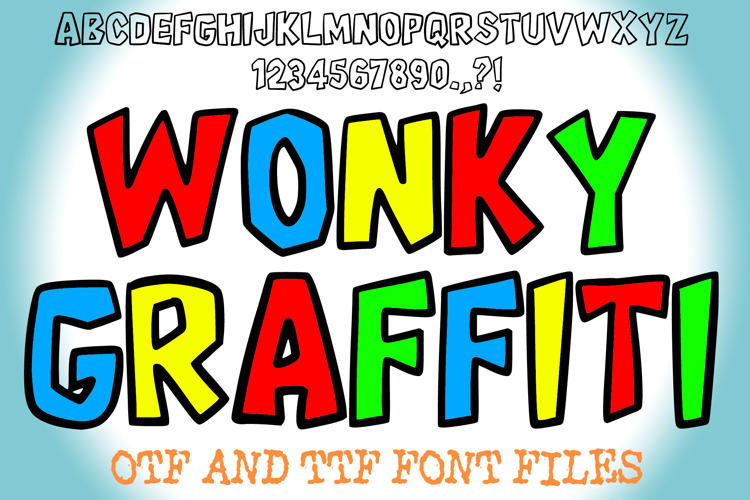
Wonky Graffiti Cutout Font Edgy, Hand-Drawn Urban Display
Unleash a raw, street-wise attitude with Wonky Graffiti Cutout Font! This powerfully expressive typeface captures the spontaneous energy of urban art, featuring bold, irregular letterforms with sharp, almost hand-cut edges that scream authentic graffiti style. It's more than just a font; it's a defiant shout from the streets, designed to inject an immediate, edgy, and vibrant feel into any creative project.
Each character in Wonky Graffiti Cutout Font is crafted with a robust, block-like structure whose outlines are sharply fragmented and angular, creating a distinctive, gritty, and eye-catching appearance, as if roughly cut from a stencil or painted freehand. Ideal for crafting impactful headlines, edgy logos, urban streetwear designs, protest art, zine layouts, or any project that demands a powerful, anti-establishment aesthetic.
Whether you're aiming for a hardcore punk vibe, a raw street art feel, a vintage DIY aesthetic, or simply a fiercely unique display, this font delivers with uncompromising style. Its commanding presence, combined with its unique wonky, cutout edges, ensures readability while injecting an artistic chaos that stands out dramatically from pristine, conventional typography.
If you're looking to infuse your designs with a sense of rebellion, genuine urban texture, and undeniable street credibility, Wonky Graffiti Cutout Font is your ultimate tool. Make your mark on the digital wall!